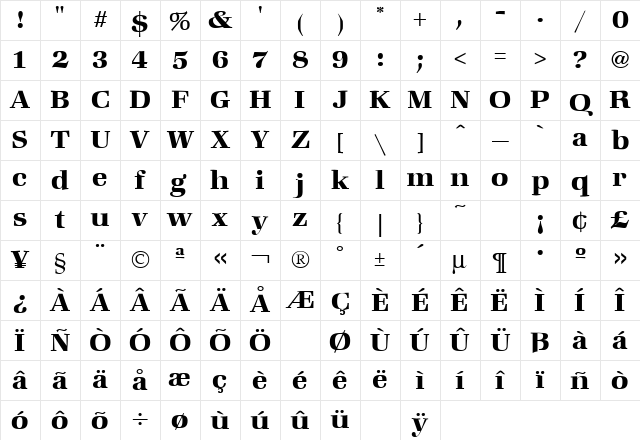
Zapf Bold
Complete Zapf Bold glyph index. Displaying only characters natively supported by Zapf Bold font.
Design Context for Zapf
Zapf is a composed and adaptable typeface that performs quietly and consistently across a wide range of design contexts. Its bold stroke weight gives it real presence on the page.